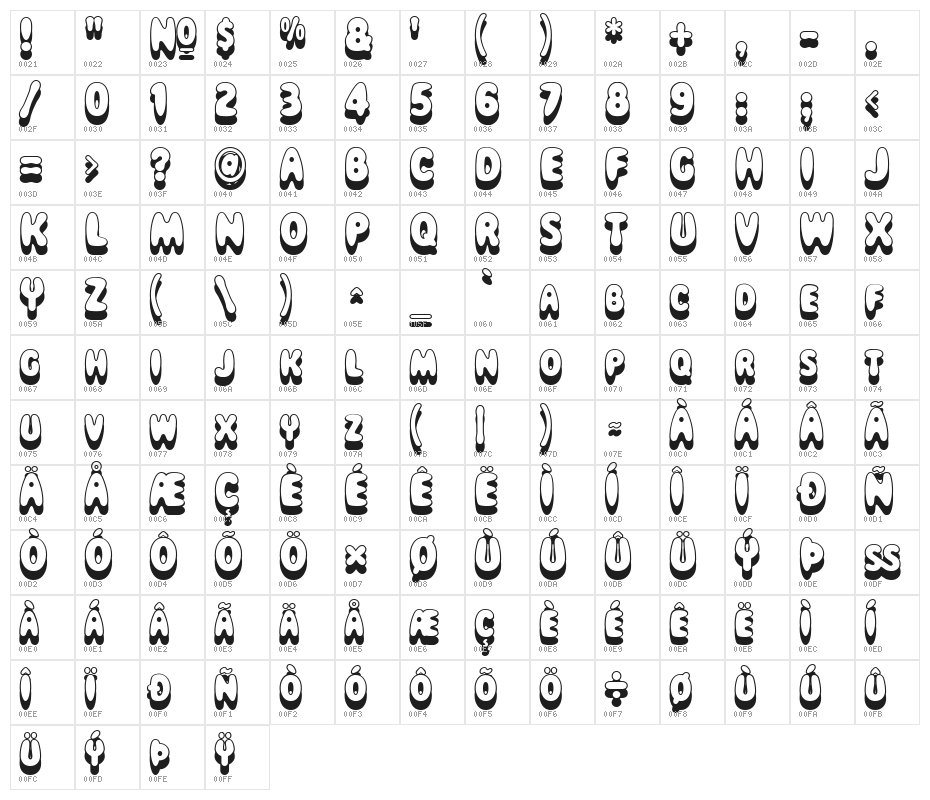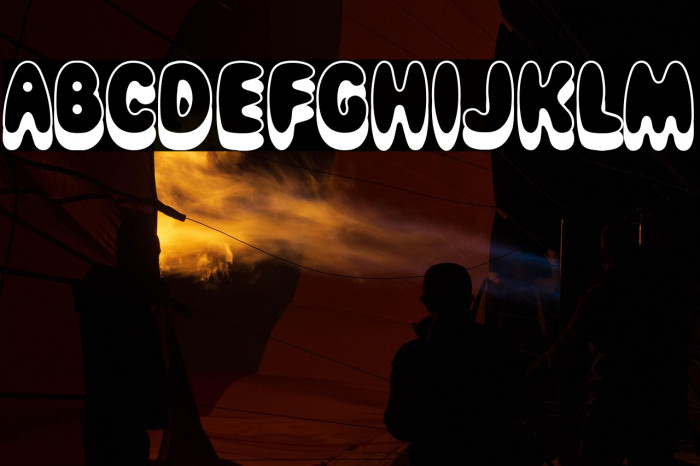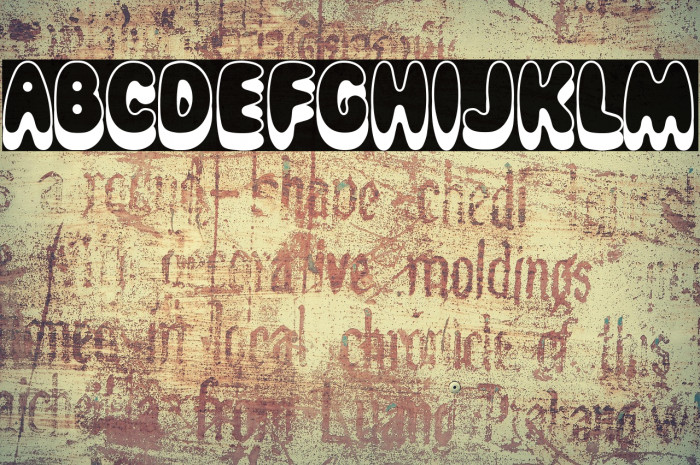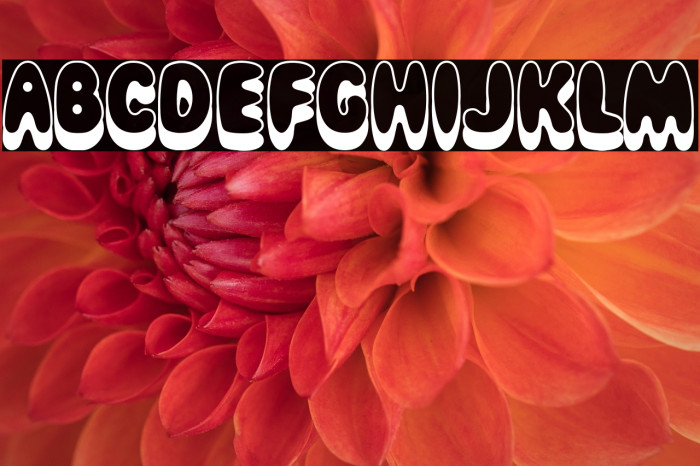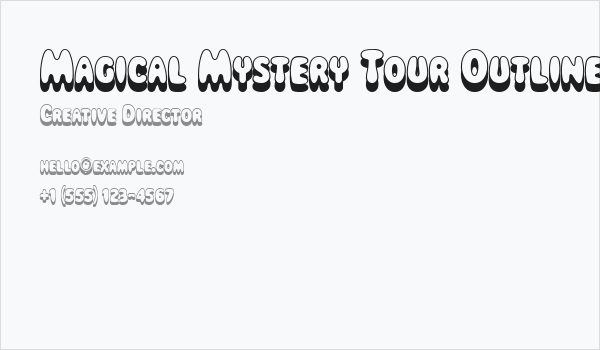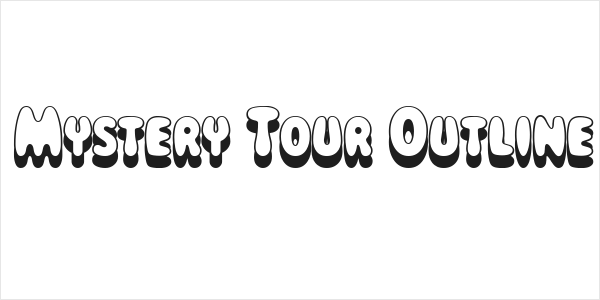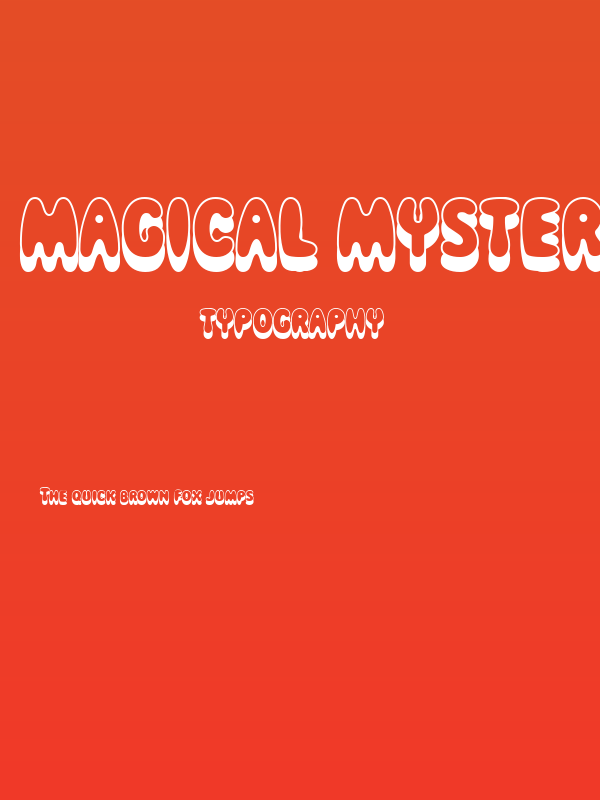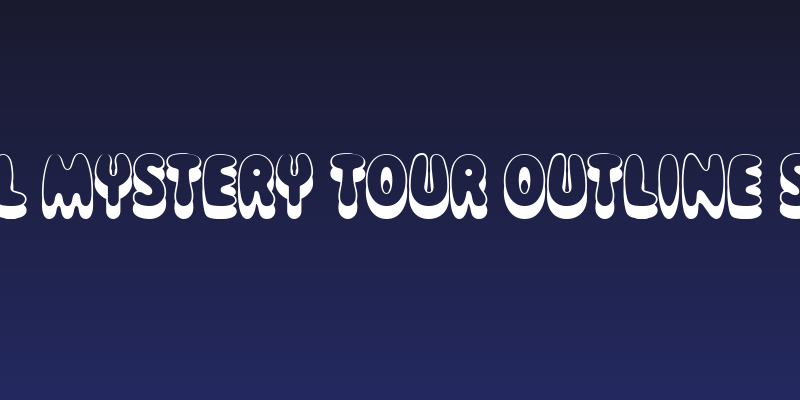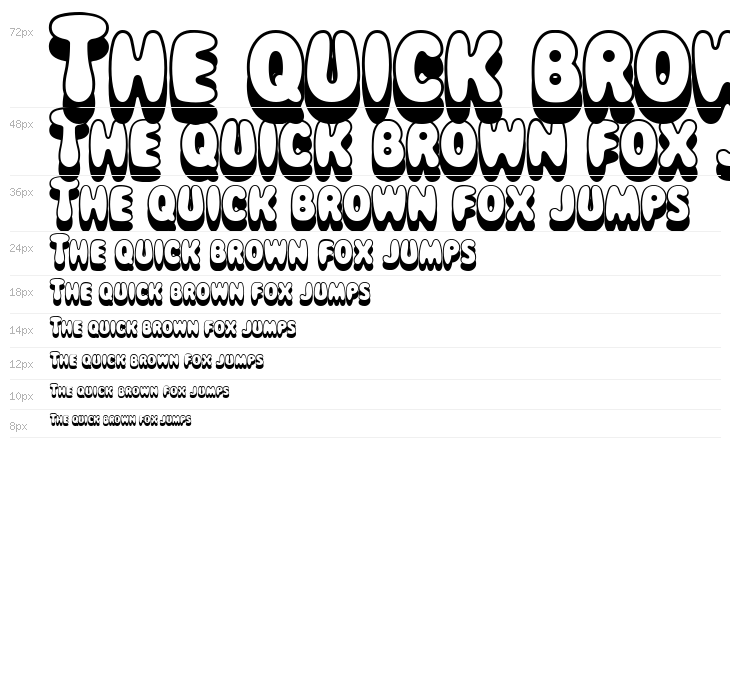
Magical Mystery Tour Outline Shadow Font
Magical Mystery Tour Outline Shadow Description
This playful and bold font features a unique outline and shadow effect that gives each character a three-dimensional appearance. The letters are rounded and bubbly, creating a whimsical and fun aesthetic. The shadow adds depth, making the font stand out, perfect for eye-catching designs. The uppercase and lowercase letters maintain a consistent style, with a slight variation in size and shape. Numbers and special characters are also included, matching the overall playful theme. This font is ideal for projects that require a lively and energetic vibe.
| Proposed Projects | Ideal for children's books, party invitations, posters, and any project needing a lively touch. |